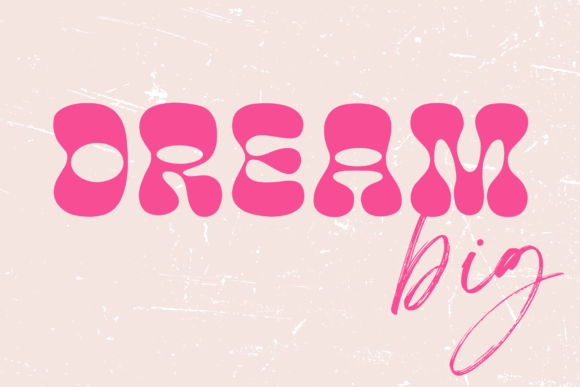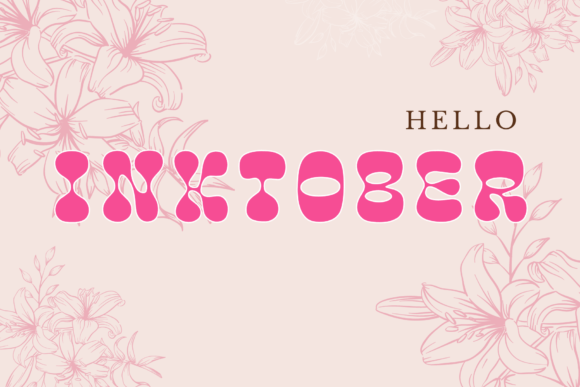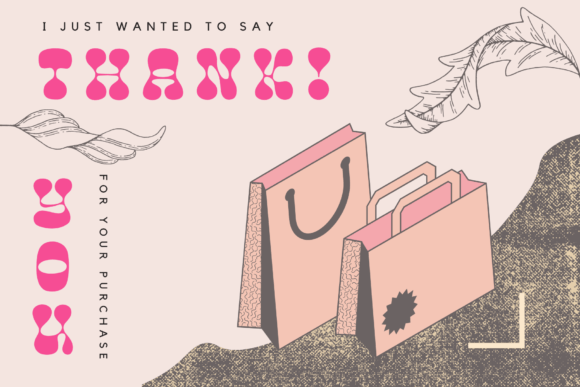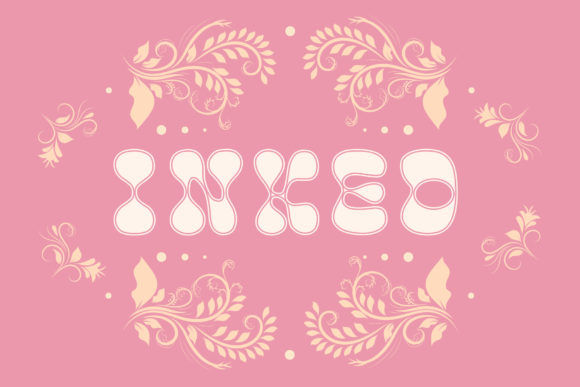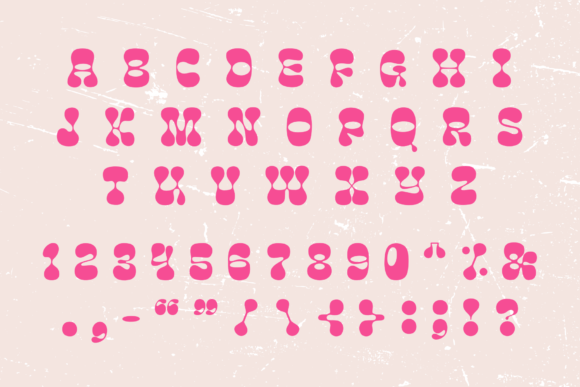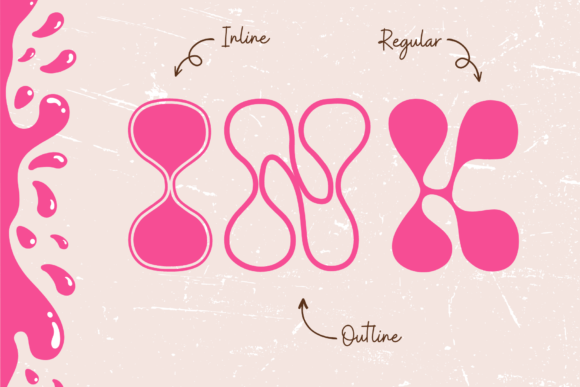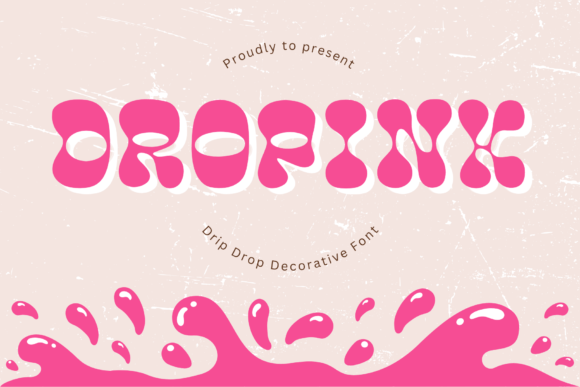
Introducing Dropink Font: Add a Touch of Whimsy to Your Designs
Are you tired of using the same old fonts in your designs? Do you want to add a touch of personality and whimsy to your creations? Look no further than Dropink Font! This droopy and attractive decorative font is sure to make your designs stand out and leave a lasting impression.
The Unique Charm of Dropink Font
Dropink Font is a playful and fluid font that evokes a sense of fun and lightheartedness. Its unique and elegant appeal makes it perfect for designers and crafters who want to add a touch of personality to their work. The font’s droopy lines and curves give it a carefree and whimsical feel that’s sure to capture the attention of your audience.
Dropink Font is versatile and can be used for a variety of design projects, including:
• Logos and branding
• Posters and flyers
• Social media graphics
• Invitations and greeting cards
• Web design and development
Whether you’re working on a personal project or a client’s design brief, Dropink Font is sure to add a touch of elegance and sophistication to your work.
Key Features of Dropink Font
Here are some of the key features that make Dropink Font a must-have for designers and crafters:
• Unique and playful design
• Fluid and droopy lines
• Elegant and whimsical appeal
• Versatile and easy to use
• Perfect for a variety of design projects
How to Use Dropink Font in Your Designs
Dropink Font is a unique and attractive decorative font that’s sure to add a touch of whimsy to your designs. Its playful and fluid lines evoke a sense of fun and lightheartedness, while still maintaining an elegant appeal. Whether you’re a designer or crafter, Dropink Font is a must-have for anyone who wants to make a lasting impression. So why wait? Get ready to add a touch of personality to your designs with Dropink Font!